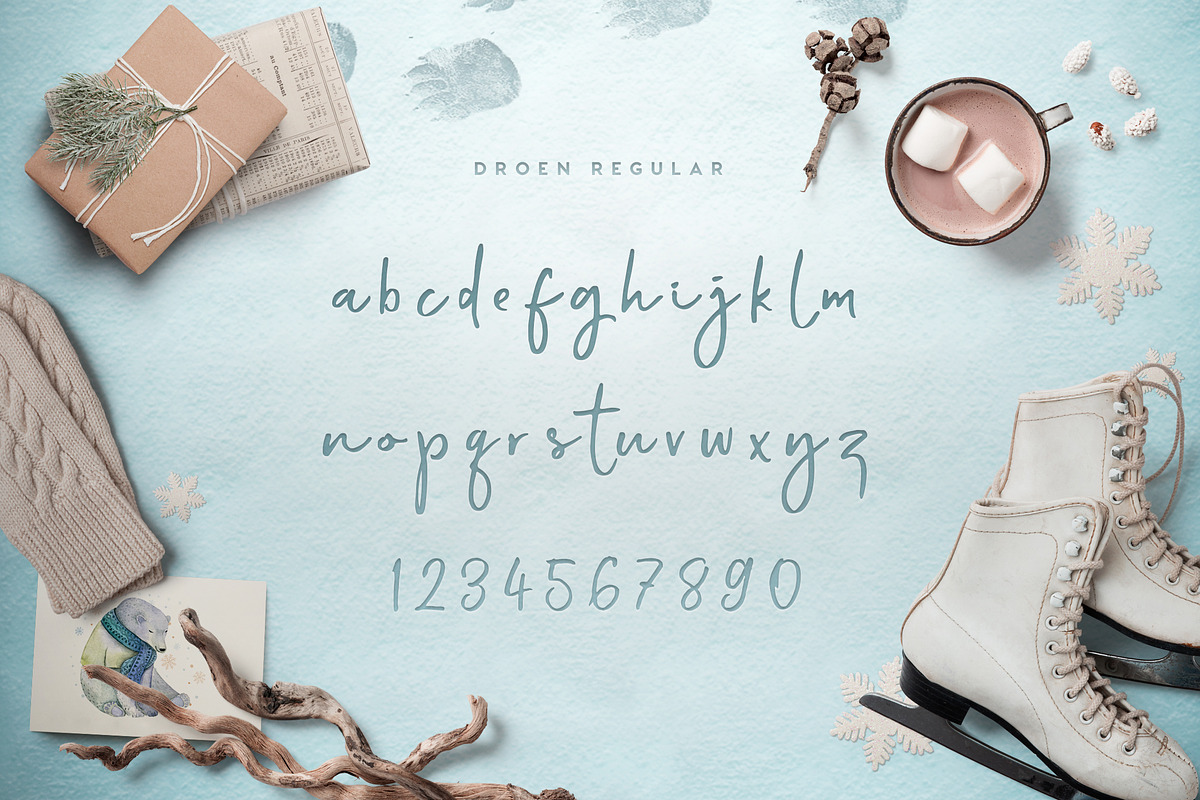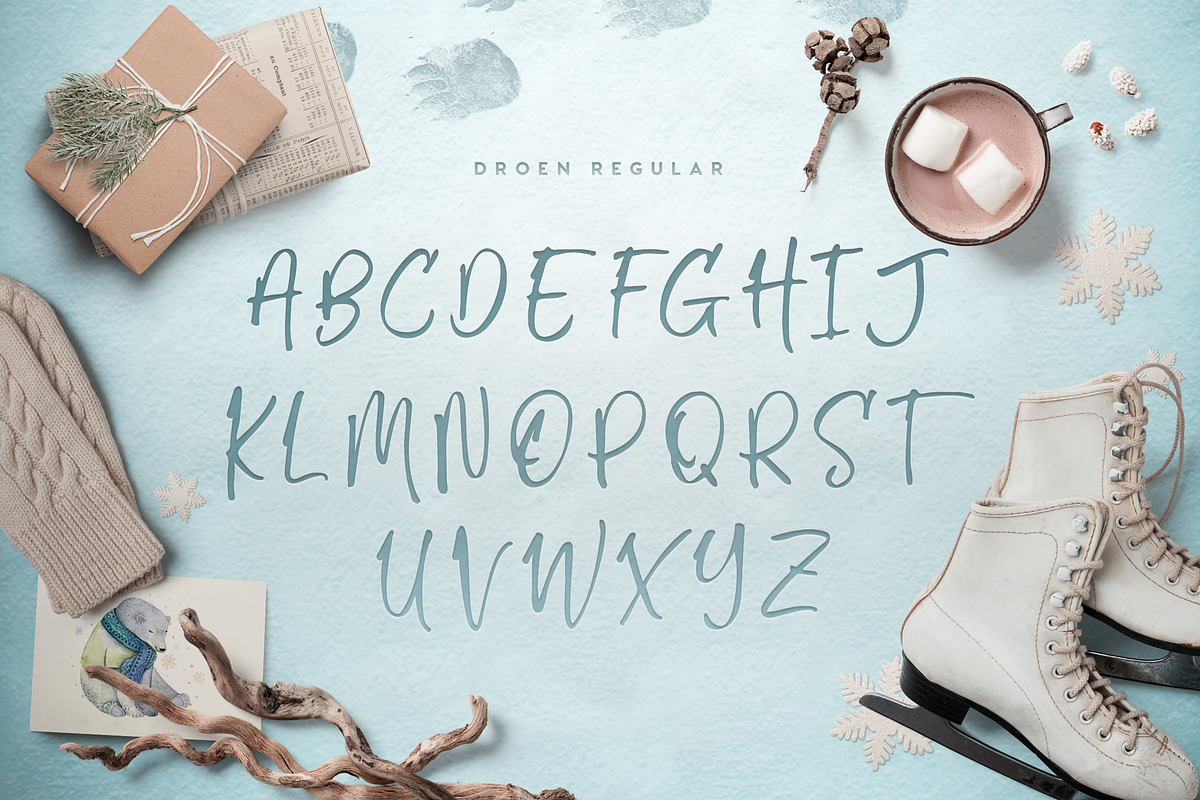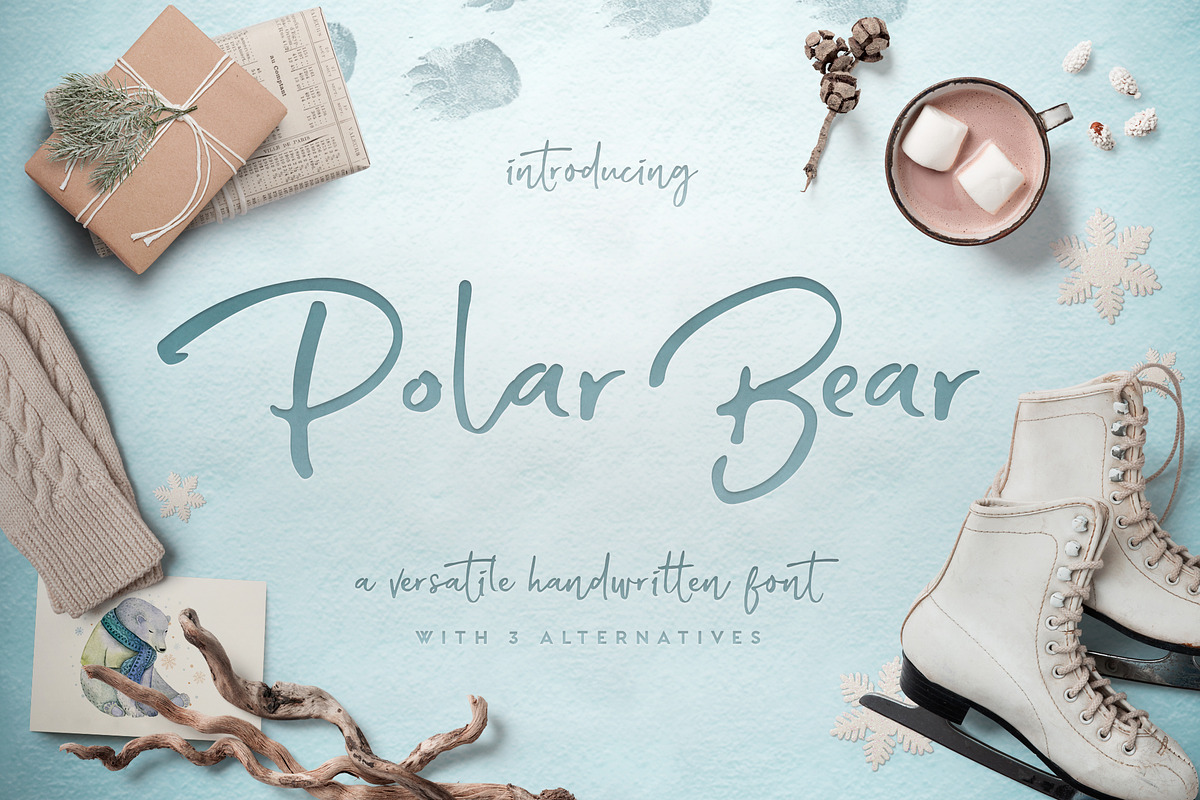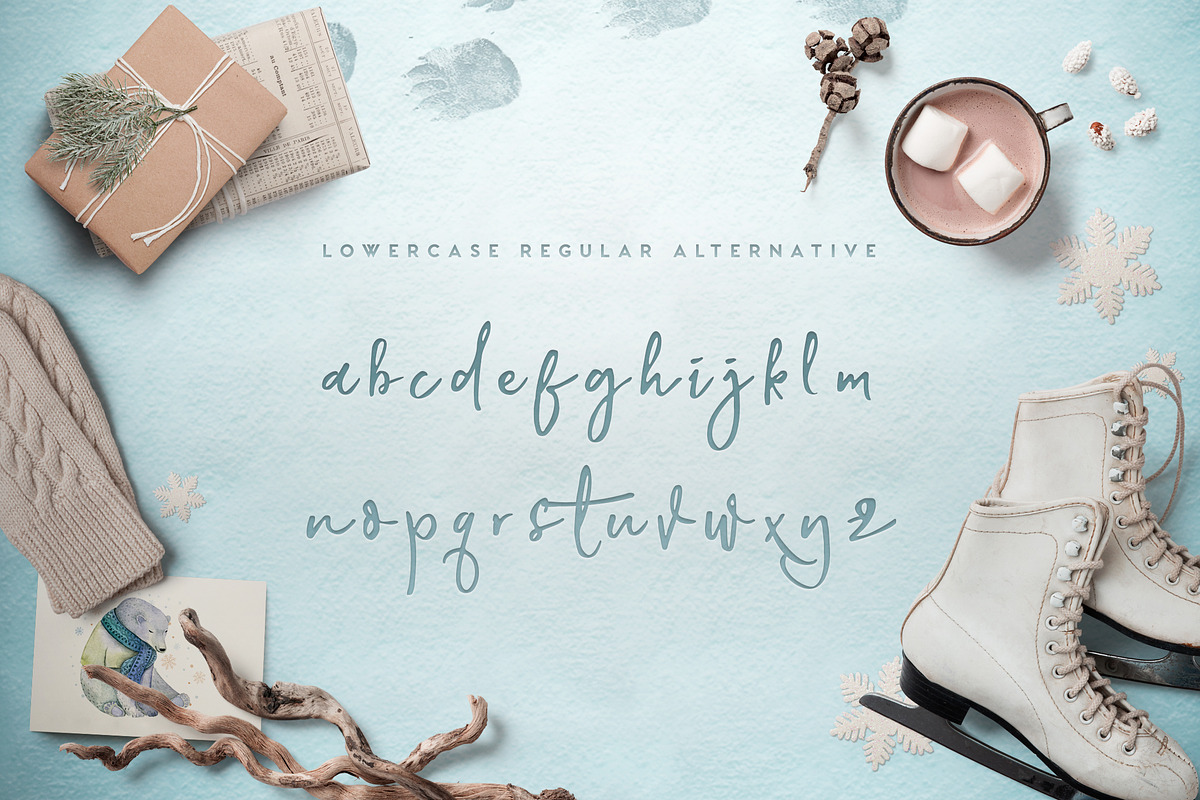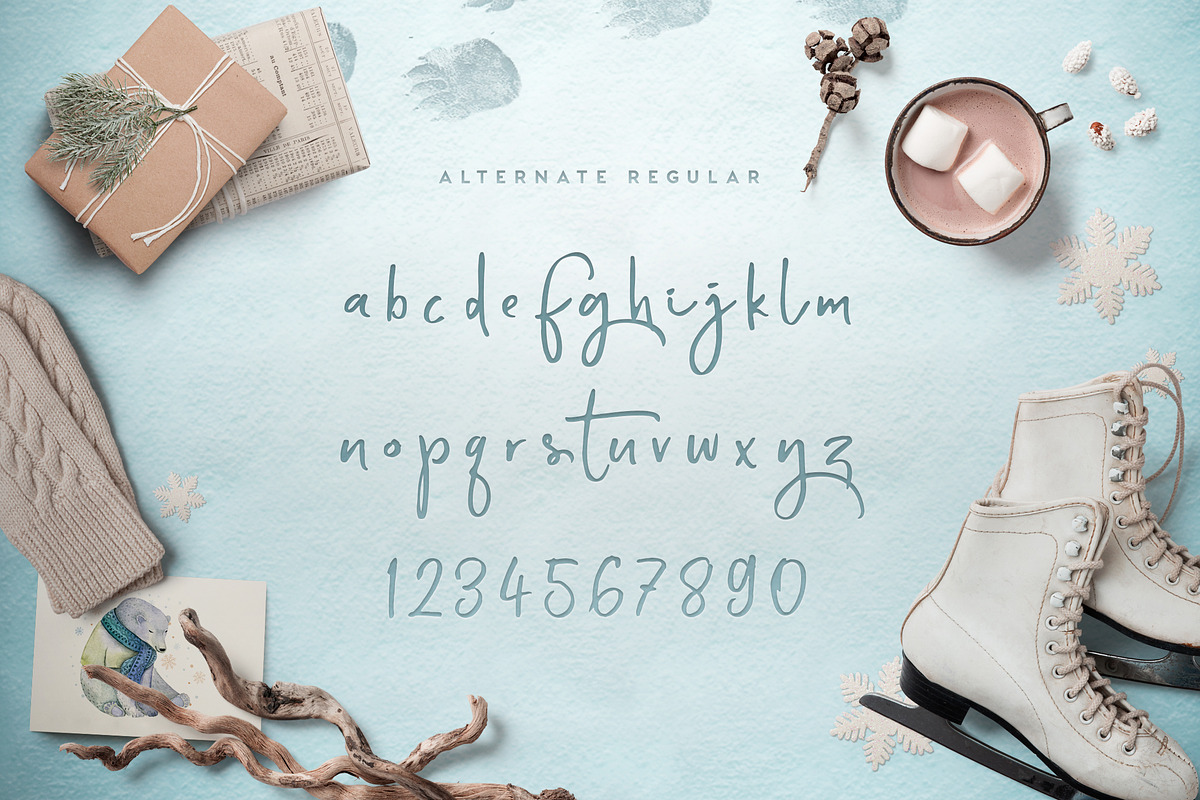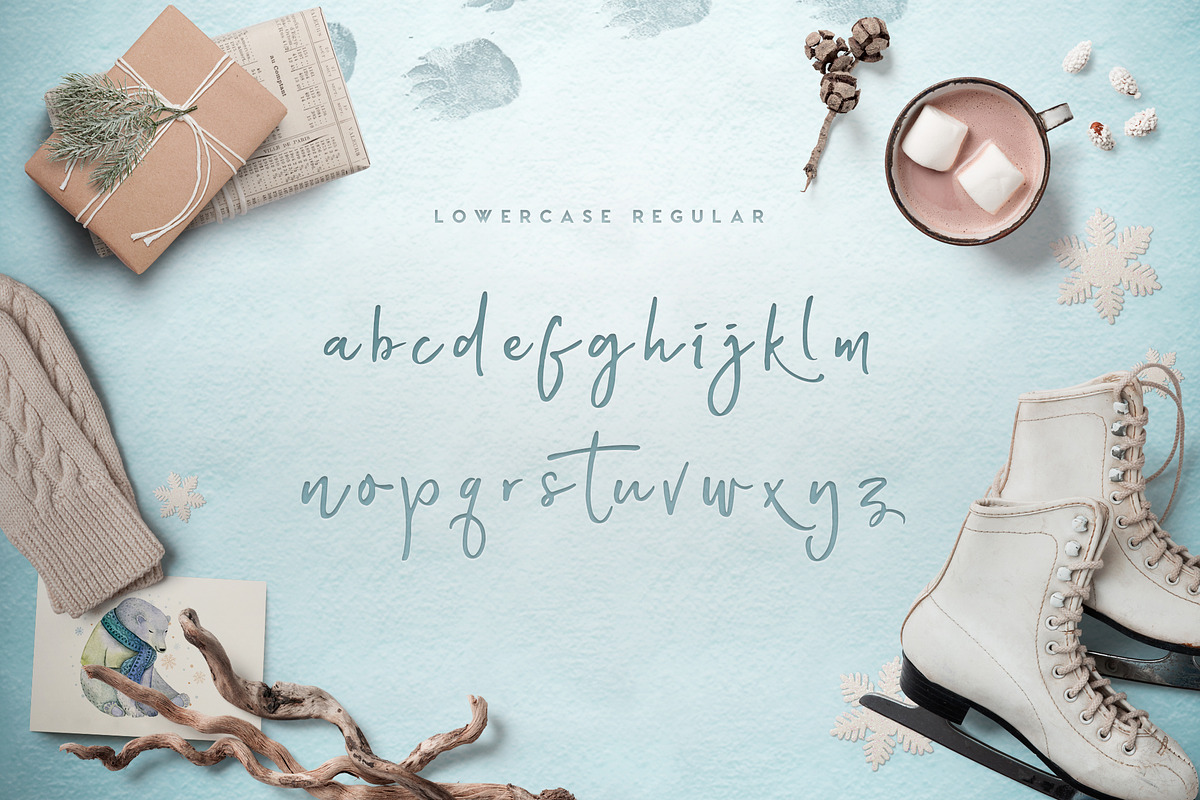
Polar Bear
Polar Bear is a cool and distinctive typeface. Packed with 3 different styles, this font collectively makes a great asset to have for a diverse range of design projects.